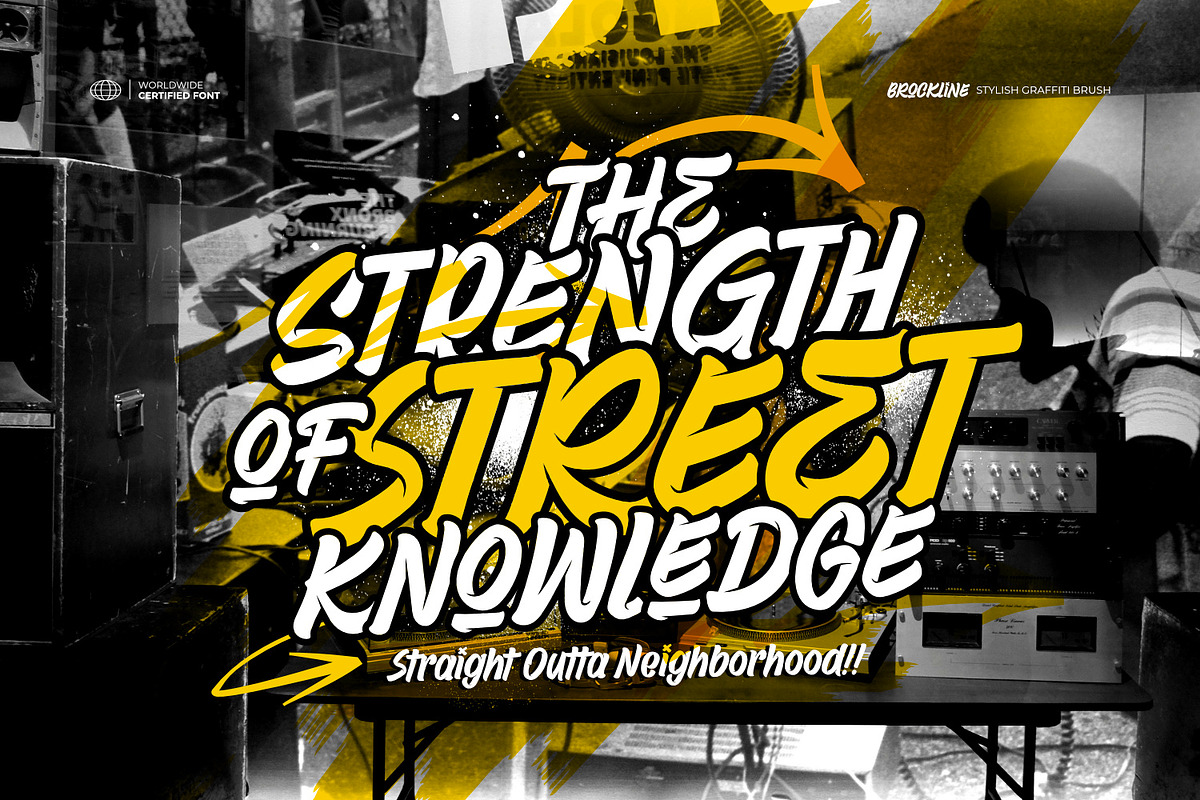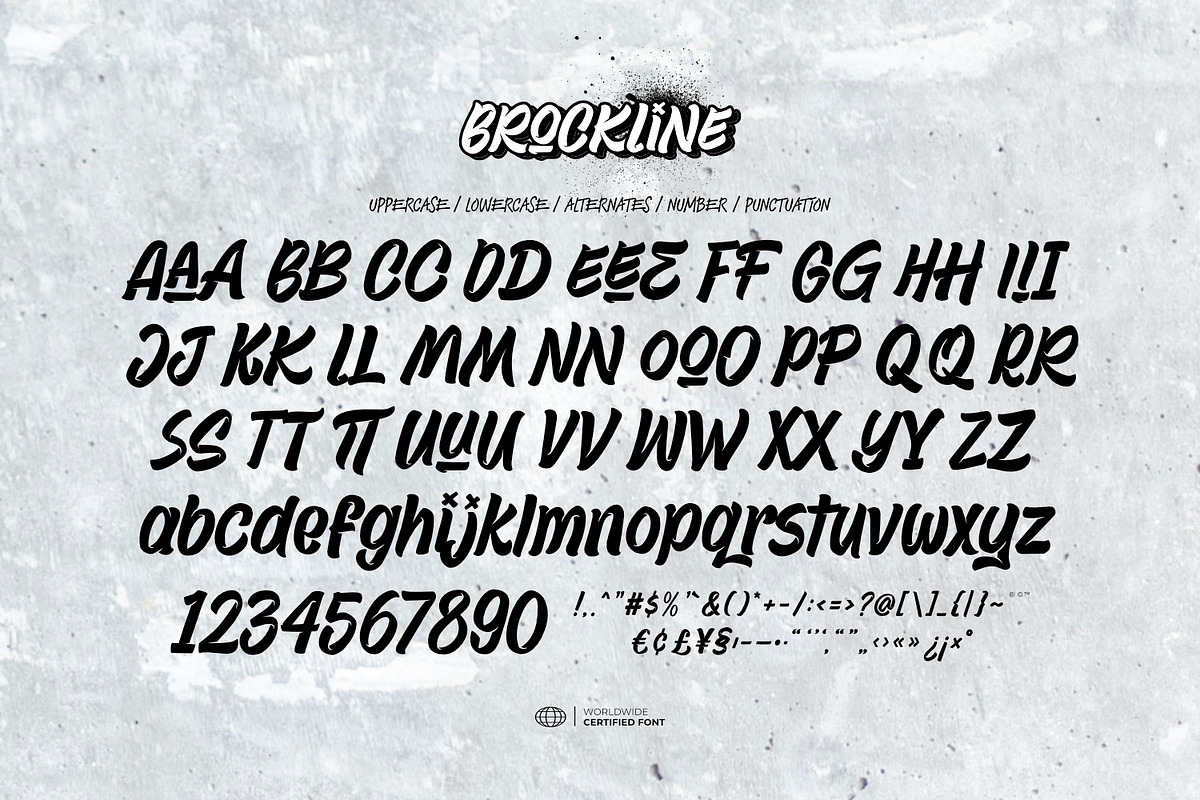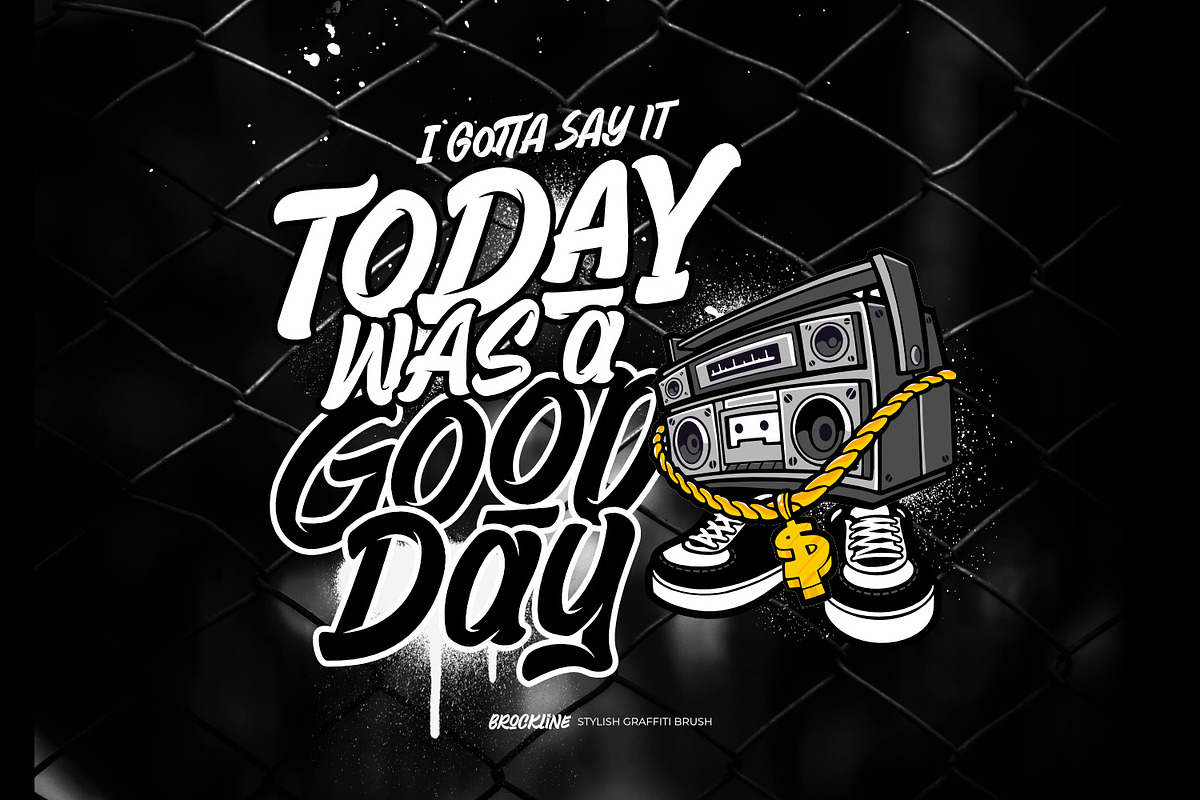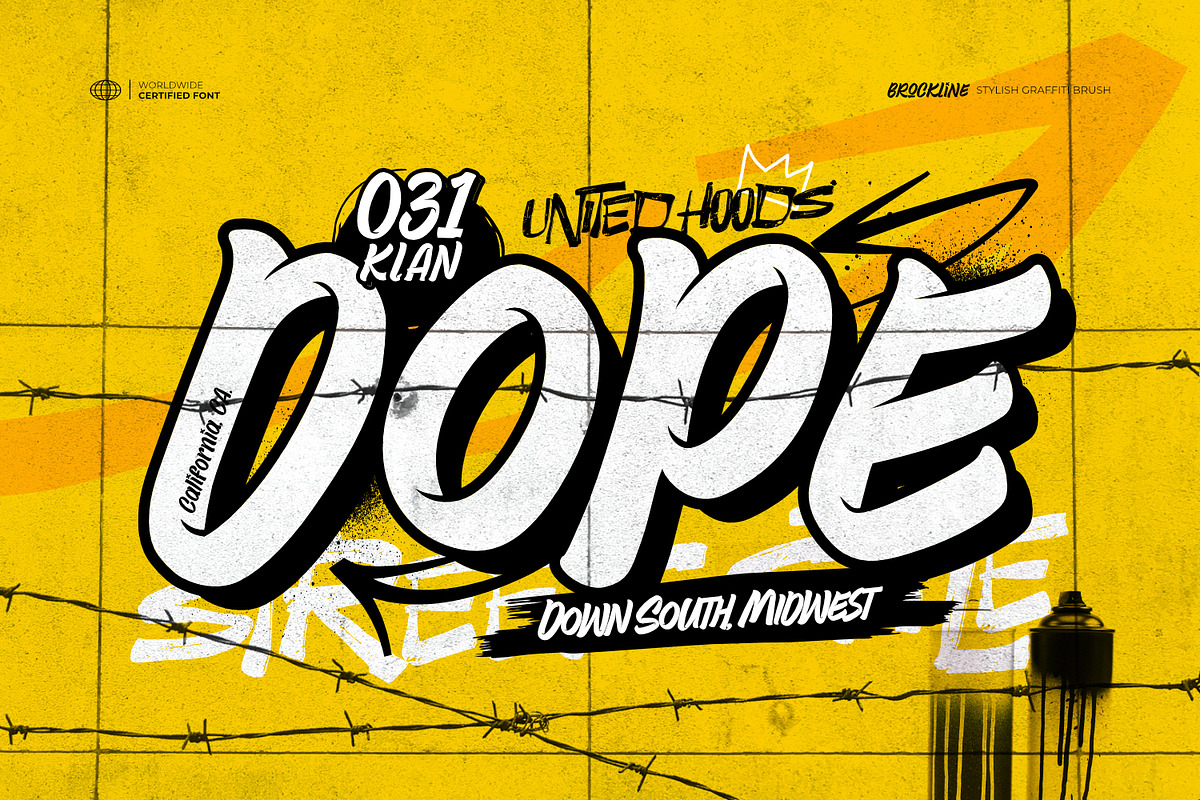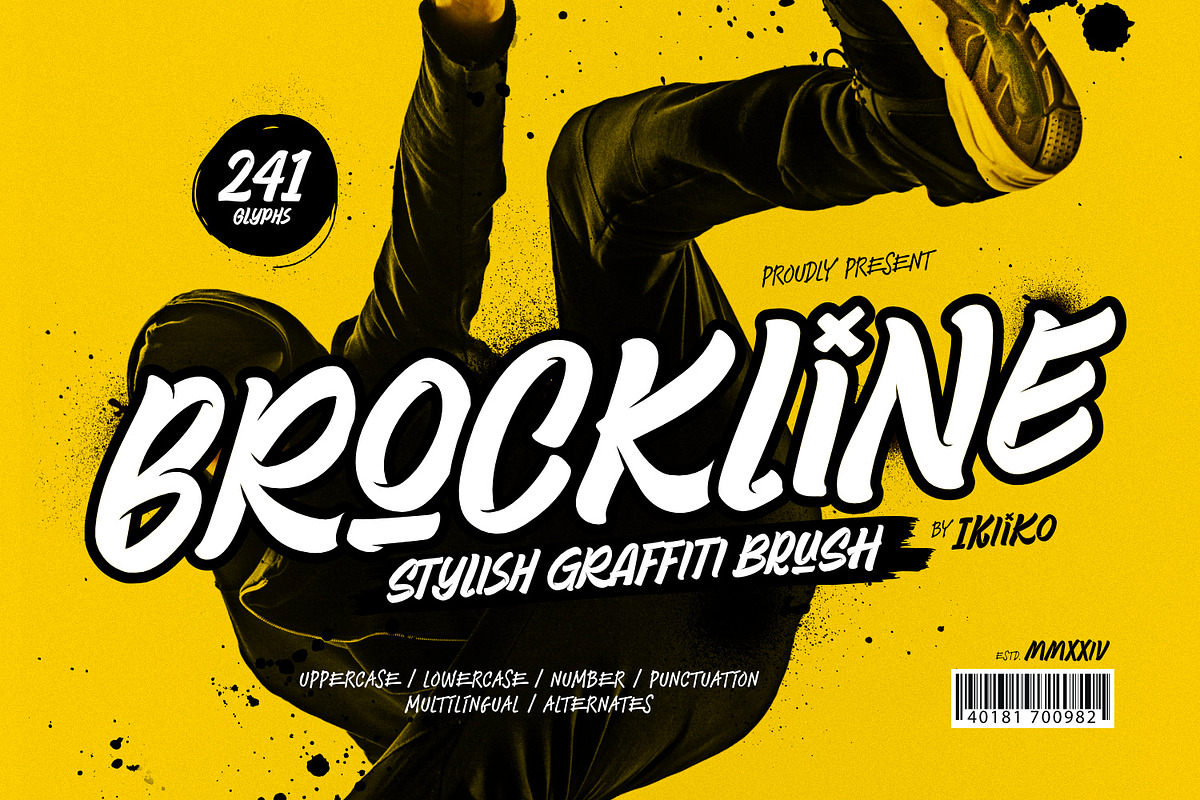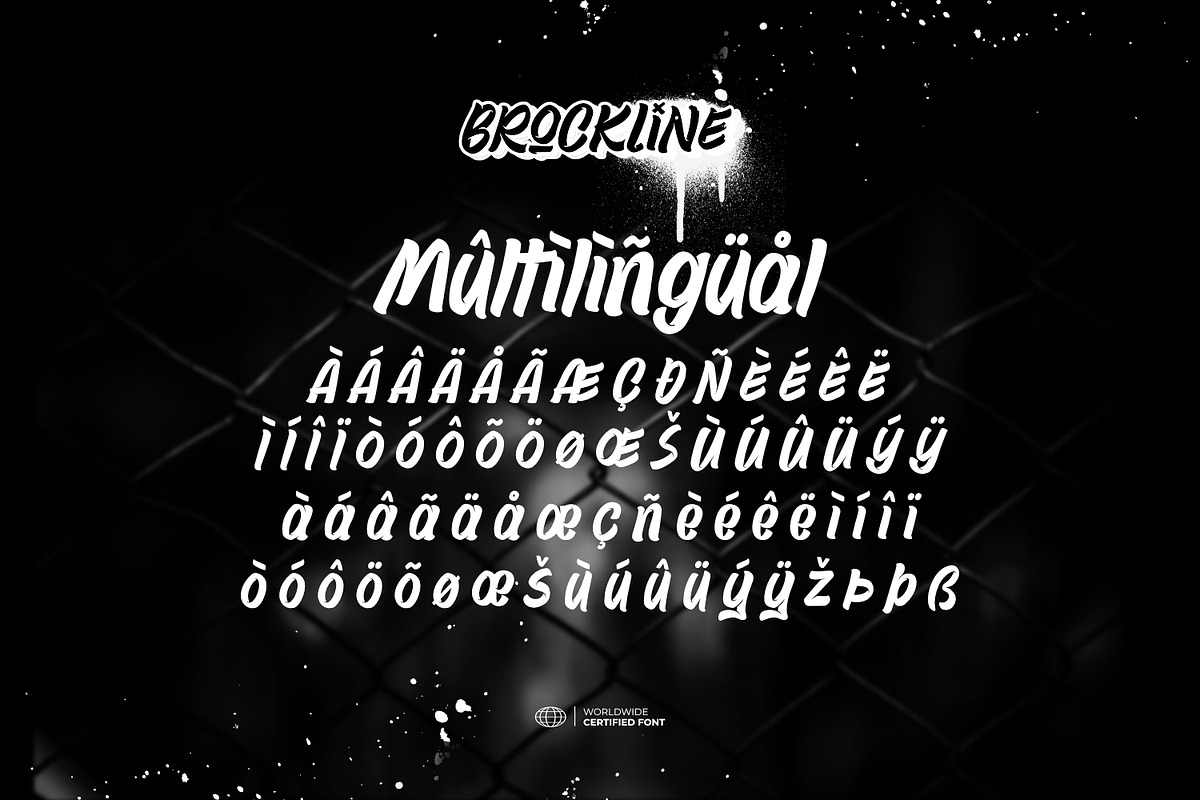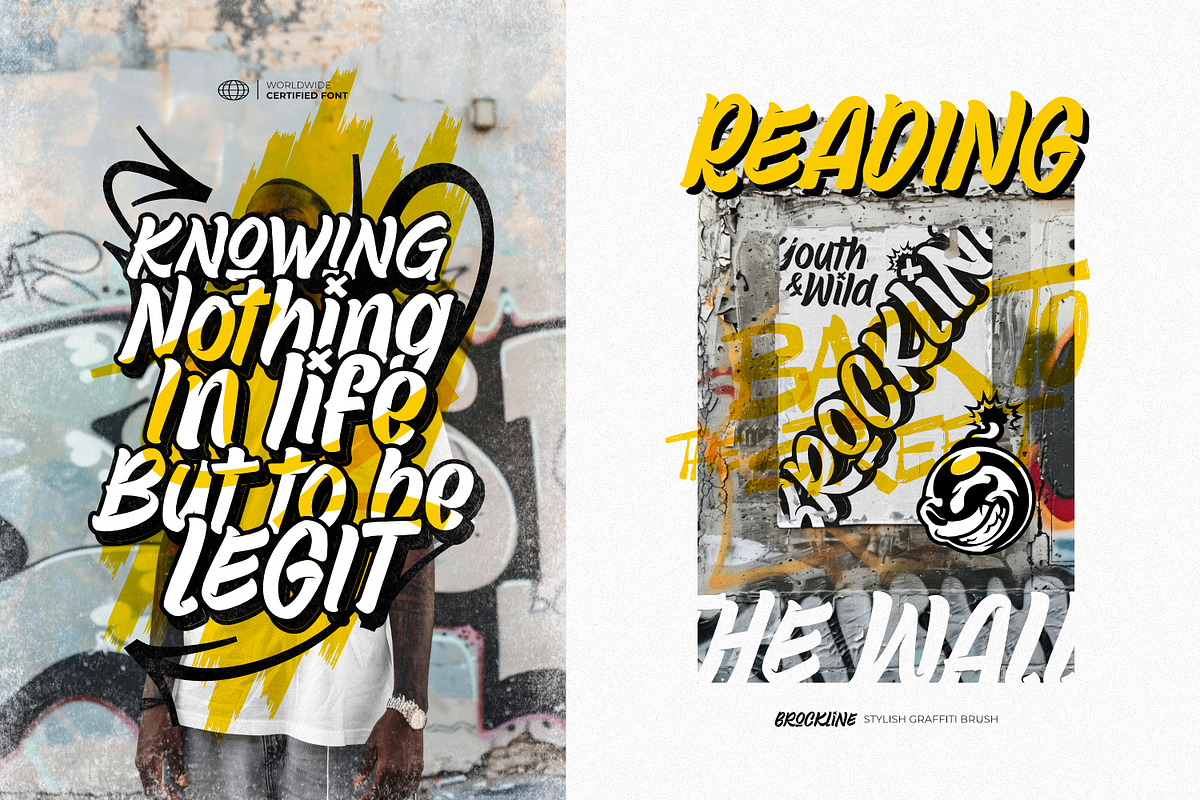
Brockline - Stylish Graffiti Brush
Proudly present Brockline - Stylish Graffiti Brush, created by ikiiko.
Step aside, this urban culture font—Brockline is here to turn up the volume! This typeface is a full-on street style revolution, packing electric vibes with its graffiti-inspired brush strokes. It's got that bold, in-your-face attitude and a playful cartoon twist that screams authenticity and rebellion.
Whether you're slapping it on wild street art, crafting logos with edge, or decking out the latest fashion trends, Brockline doesn’t just follow the trend; it sets it. With its killer blend of swagger and artistic flair, this font is the ultimate choice for anyone who wants their projects to pop with serious urban cool.
This font is very suitable for making a urban street fashion, street wear, stylish poster event, magazine layout, packaging, food & beverages, quotes, or simply as a stylish text overlay to any background image.